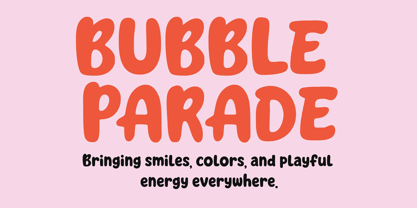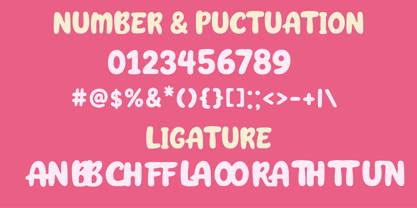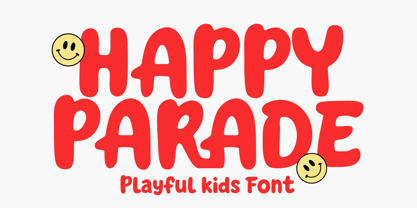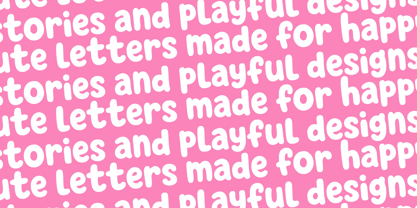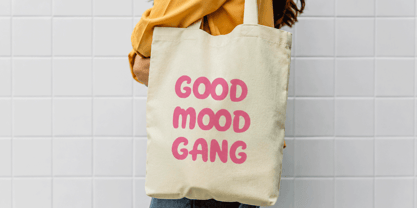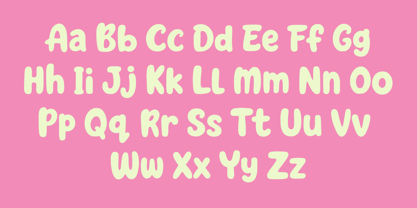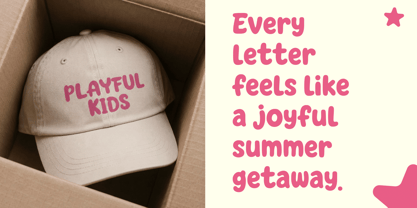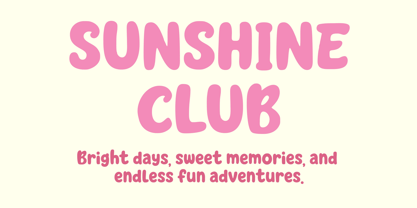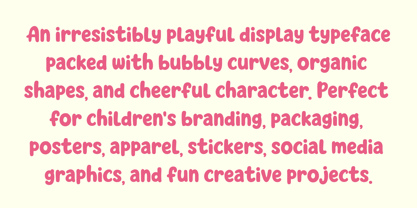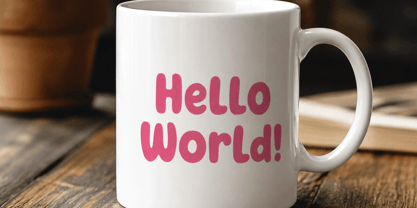
Happy Parade
Happy Parade is a cheerful children's font with bold, large letterforms and soft, rounded edges. Designed to bring joy and personality to any project, this font creates a fun, friendly, and approachable look that immediately catches the eye. Its unique shapes and playful style make it perfect for children's books, educational materials, birthday invitations, toy packaging, branding, posters, and social media designs. Whether you're creating something cute, colorful, or imaginative, Happy Parade adds a touch of cheerful happiness to your typography.